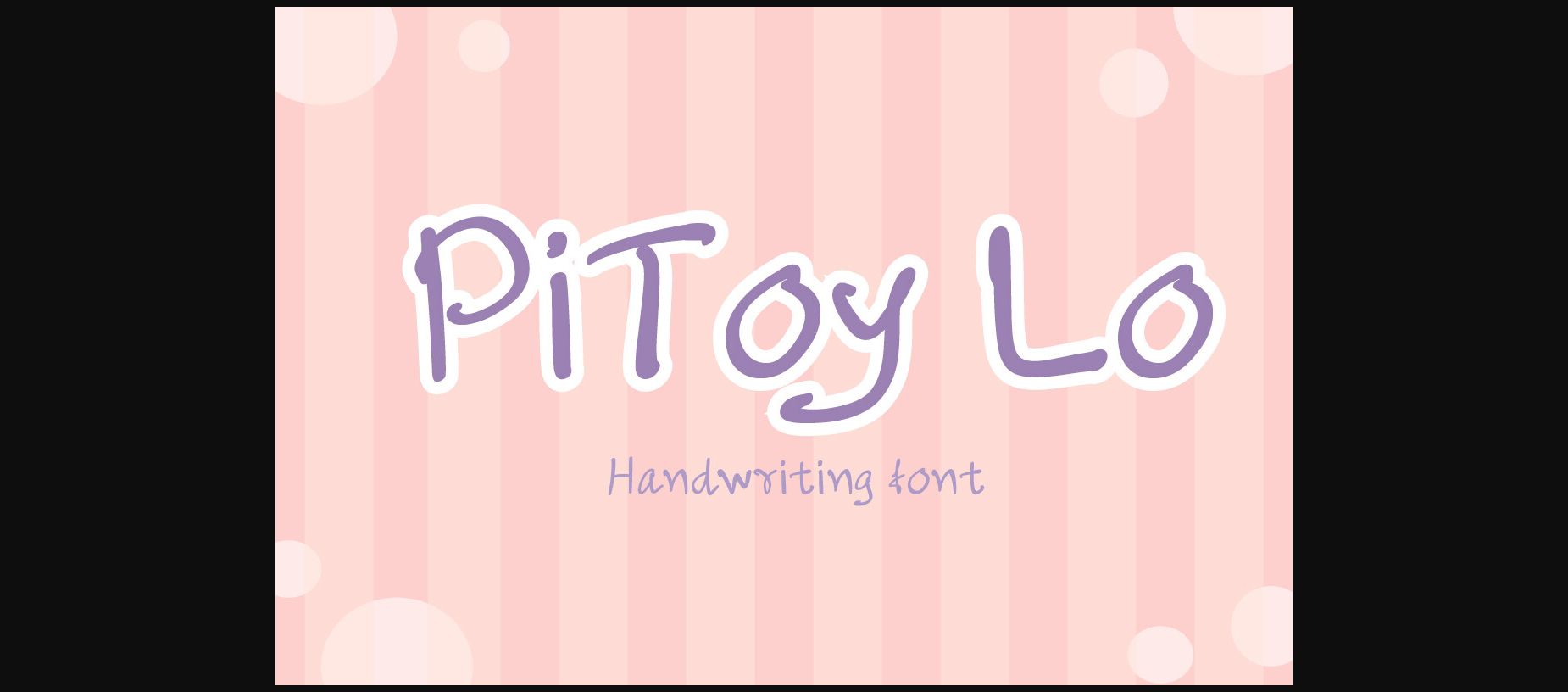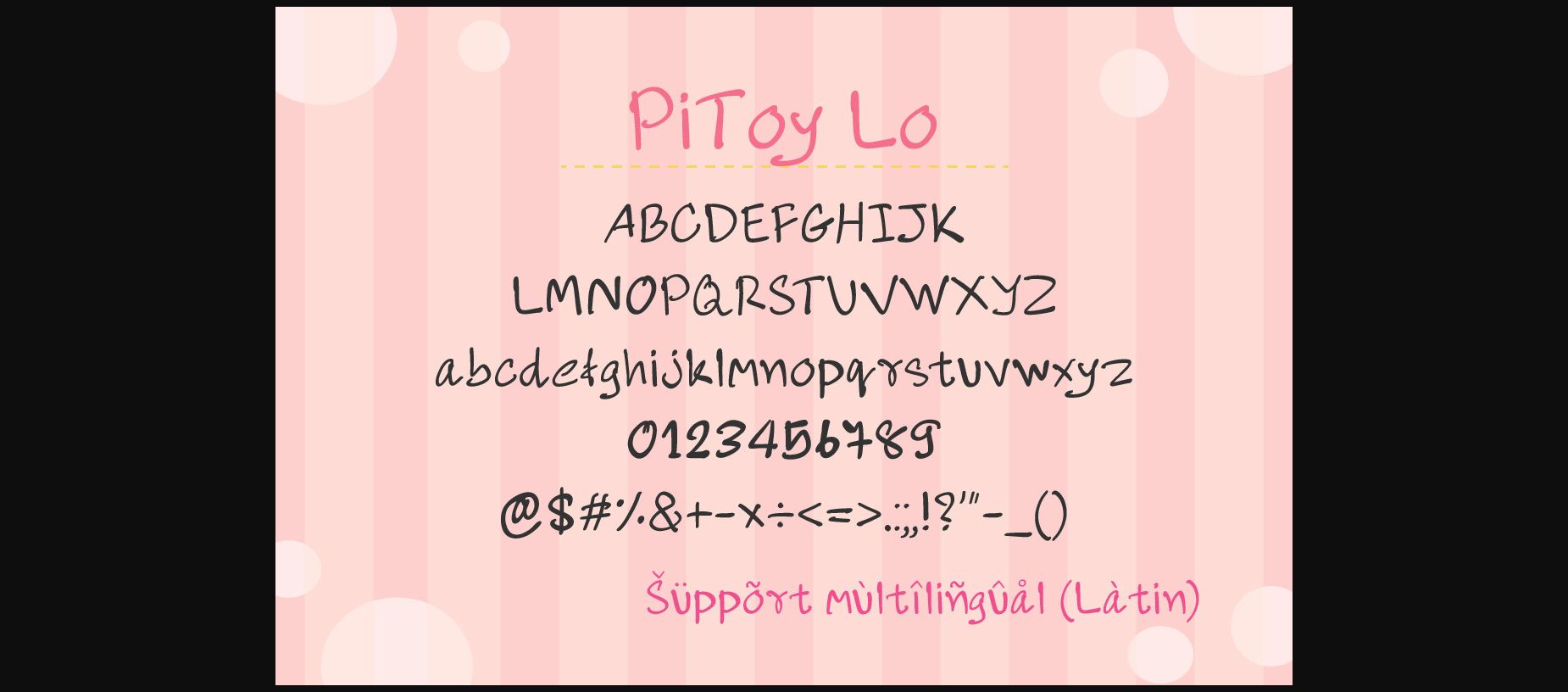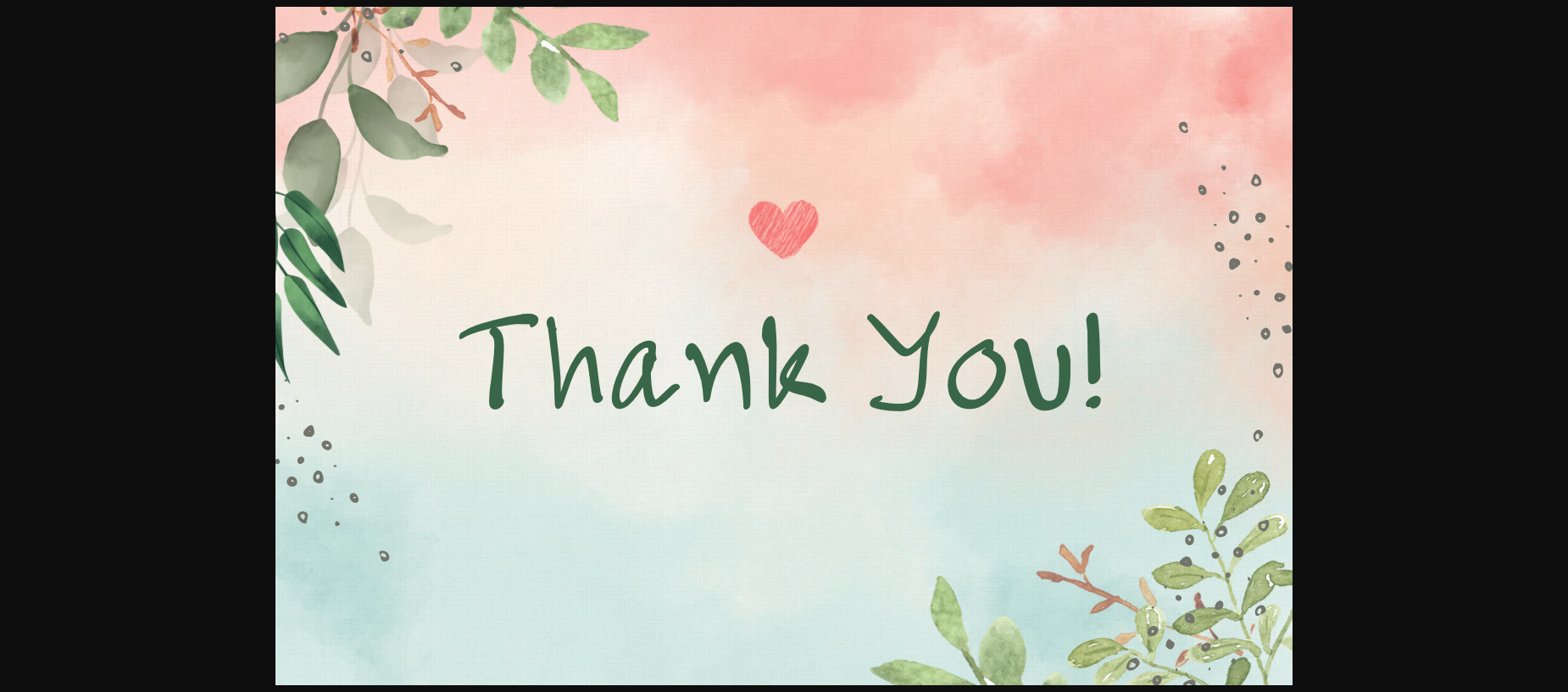
About Pitoy Lo Font
PiToy Lo is a sweet and friendly handwritten font. Its natural and unique style makes it incredibly fitting to a large pool of designs. The only limit is your imagination!